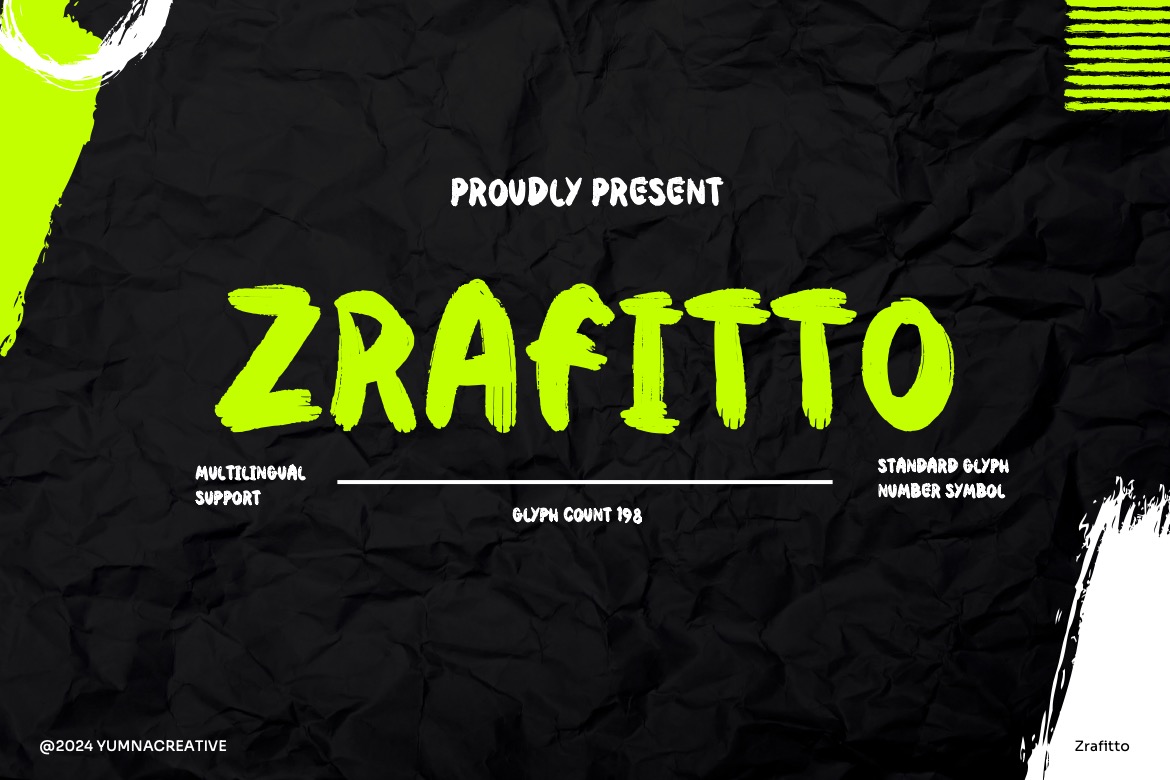
- Zrafitto – Brush Handwritten Font
Introducing **Zrafitto – Brush Handwritten Font**
This Font is a delicate, elegant and flowing handwritten font. It has beautiful and well as a unique blend of ligatures a letter, so that the authors compose it with a and little swirly embedding, so that a modern font is formed and ready to make a statement by adding elegant and unique flair to your next design project. Add it to your most creative ideas and notice how it makes them come alive!